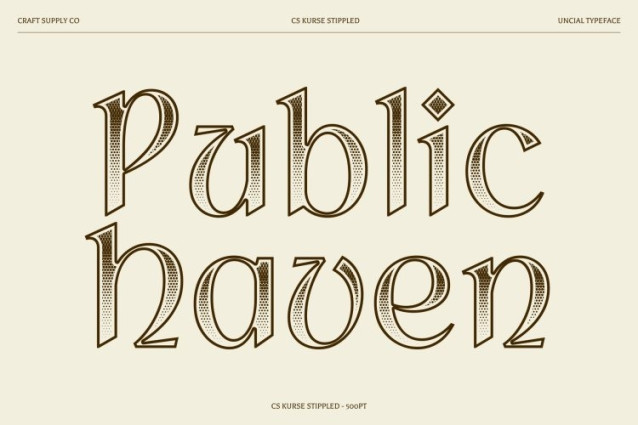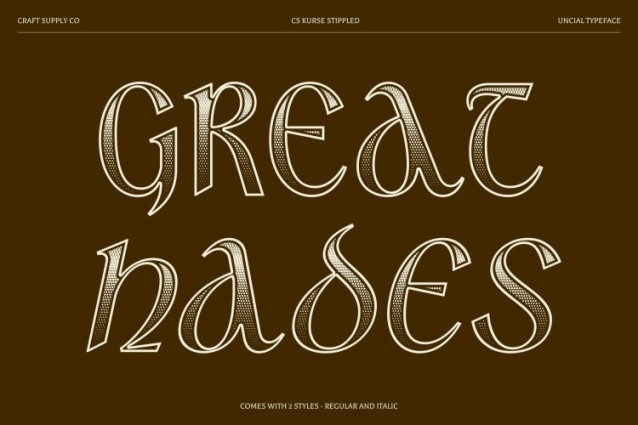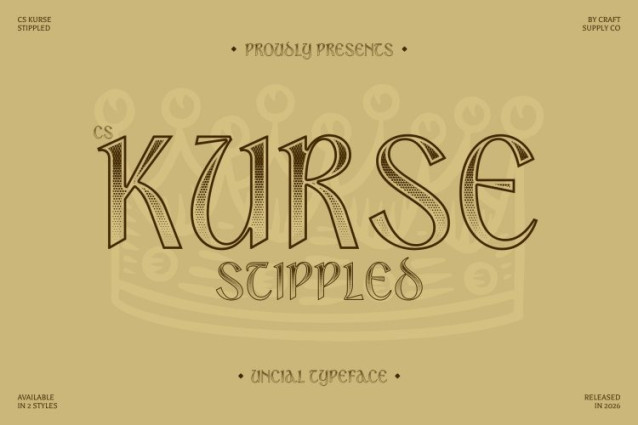
CS Kurse Stippled Font
CS Kurse Stippled Font – This is a display font inspired by ancient uncial script, known for its rounded, bold letterforms and gentle curves. This style echoes the beauty of medieval calligraphy, creating a timeless and elegant presence. The soft yet strong shapes capture a perfect balance between artistic expression and historical authenticity, making the font visually striking while remaining warm and approachable.
Rich Historical Character with Stippled Texture
Enhanced with a dense dotted texture, this font introduces a distinctive stippling effect reminiscent of traditional ink dot illustrations. This dotwork detail adds depth, texture, and handcrafted charm, giving the font a unique personality that feels both classic and artistic. The stippled finish reinforces the connection to ancient manuscripts and hand-drawn techniques, emphasizing authenticity and craftsmanship.
Classic Elegance with an Artistic Vintage Feel
The uncial style naturally conveys tradition, wisdom, and sophistication, while the stippled texture enriches the overall visual impact. The result is a typeface that feels nostalgic yet expressive, perfect for designs seeking a historical atmosphere with an artistic twist.
Perfect for Artistic and Vintage-Themed Projects
This font shines in posters, book covers, packaging, branding, and editorial designs that require a classic or antique tone. Its unique combination of rounded uncial forms and intricate dotwork creates a memorable visual identity, making it ideal for projects celebrating heritage, creativity, and timeless design.